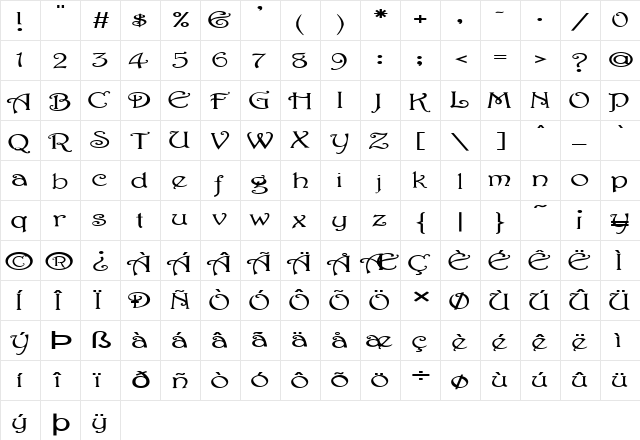
elista Normal Font Preview
elista Normal
elista Normal Font Details
Design Context for elista Typeface
elista is a composed and adaptable typeface that performs quietly and consistently across a wide range of design contexts.